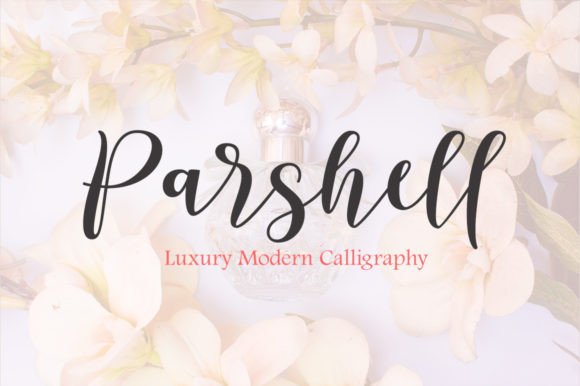
Introducing Parshell Font, the epitome of beauty and style in the world of script fonts. Created by the talented team at gatype, this font family is here to revolutionize your design projects with its modern and captivating look.
With Parshell Font, your creative possibilities are endless. Its natural strokes effortlessly enhance the visual appeal of any project, be it elegant invitations or professional certificates. This font is designed to add a touch of class and sophistication while maintaining an authentic, handwritten aesthetic.
Unlocking the full potential of Parshell Font is a breeze, thanks to its PUA encoding. This means that you can effortlessly access all the extraordinary glyphs and swashes that this font has to offer. Let your imagination run wild as you explore the countless design options and create truly unique and mesmerizing visuals.
But what sets Parshell Font apart from the rest? It's the emotional connection it establishes with its users. As you dive into the world of Parshell Font, you'll experience a sense of elegance and charm that breathes life into your projects. Your designs will exude confidence, leaving a lasting impression on anyone who lays eyes on them.
Imagine the joy of presenting your work with a font that evokes emotions, captures attention, and speaks volumes about your creativity. Parshell Font is your gateway to stunning typography that effortlessly enhances the message you want to convey.